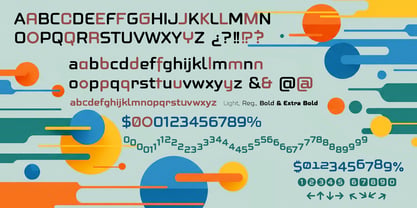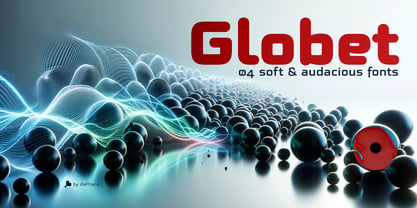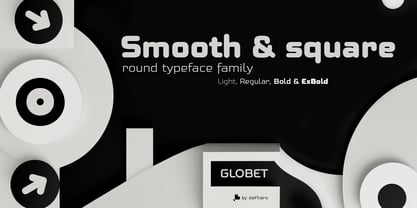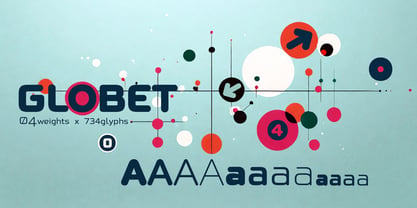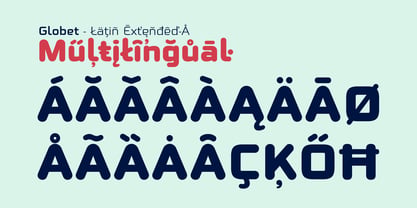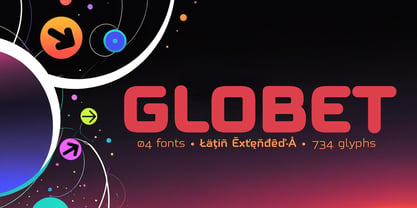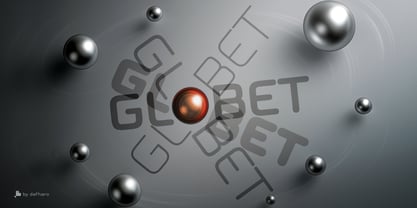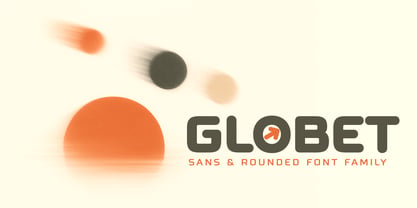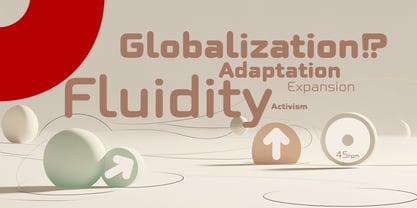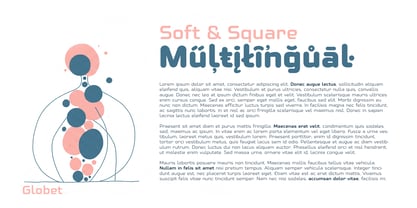
Globet Round
by deFharo
The Globet Round Font Family was designed by Fernando Haro and published by deFharo. Globet Round contains 4 styles and family package options. More about this family
Globet Rounded is a multipurpose conceptual font that perfectly combines boldness with elegance, Globet was born from the desire to balance legibility and personality. Gentle geometry and optical precision come together to create an exceptional reading experience.
Its square proportions provide a solid foundation, while its rounded shapes soften the geometric structure, giving it a friendly, approachable, and modern tone. Rounded typefaces have that unique magic: they communicate with warmth without losing strength; they are versatile, friendly, and highly professional, ideal for brands that want to connect without appearing cold or distant.
Four weights, endless possibilities. Globet Rounded comes in four carefully balanced versions: Light, Regular, Bold, and Extra Bold. You can use it for everything from light and airy body text to striking headlines that demand a strong presence.